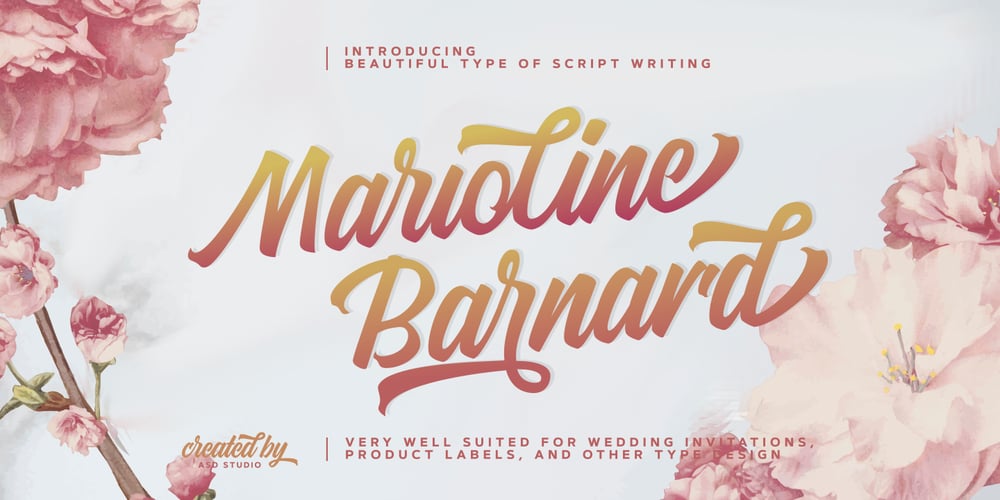
Marioline Barnard Font Family was designed by Ghazi Fauzan and published by Asd Studio. Marioline Barnard contains 1 styles and family package options. Introducing my Marioline Barnard Script, a passionatly crafted fancy script. Marioline Barnard script fully meets my expectations for a script that gives you luxurious vibes as much as casual vibes, elegant but simple, strong but light vibes. Marioline Barnard comes with beautiful uppercase and lowercase alternates (up to 11 level alternates, ligatures include), and swashes. Marioline Barnard has Multilingual support (Western European characters) and works with following languages: English, French, Italian, Portuguese, German, Swedish, Norweigan, Danish, Dutch, Finnish, Indonesian, Filipino, and Malay. Marioline Barnard is modern script font, every single letters has been carefully crafted to make your text looks beautiful. With modern script style this font will perfect for many different project, example: invitations, greeting cards, posters, name card, quotes, blog header, branding, logo, book cover, fashion, apparel, letter, logotypes, wedding invitations, product labels, and clothing product, stationery and more. Thank you.